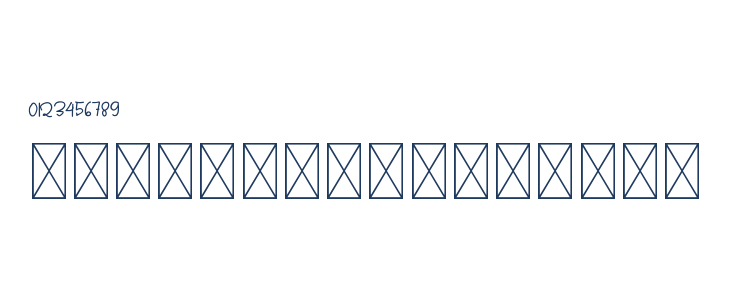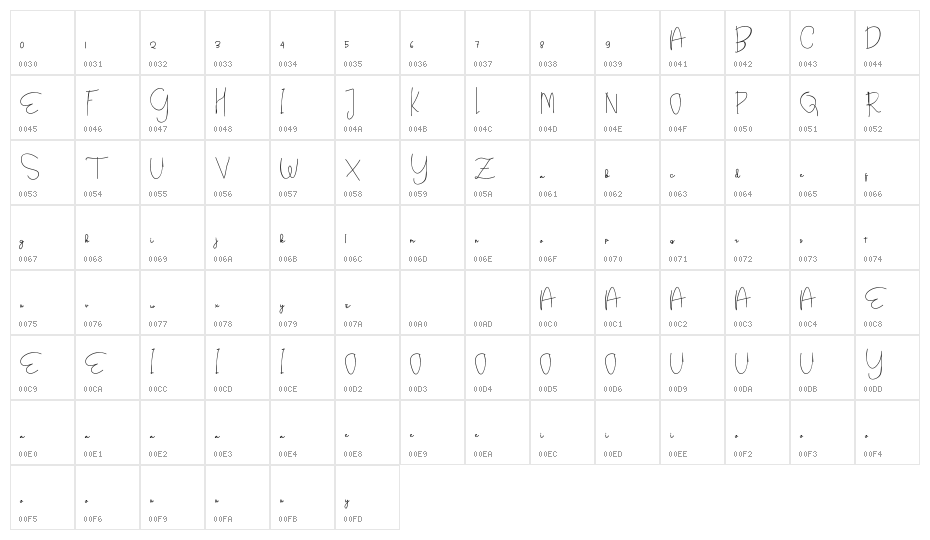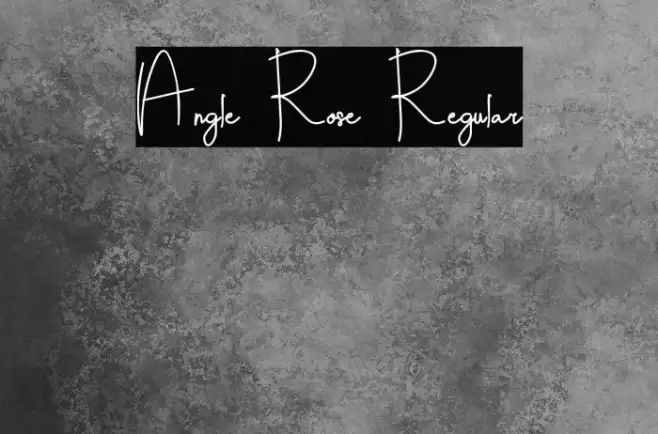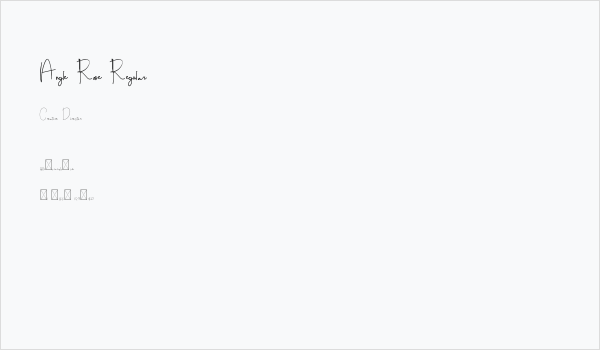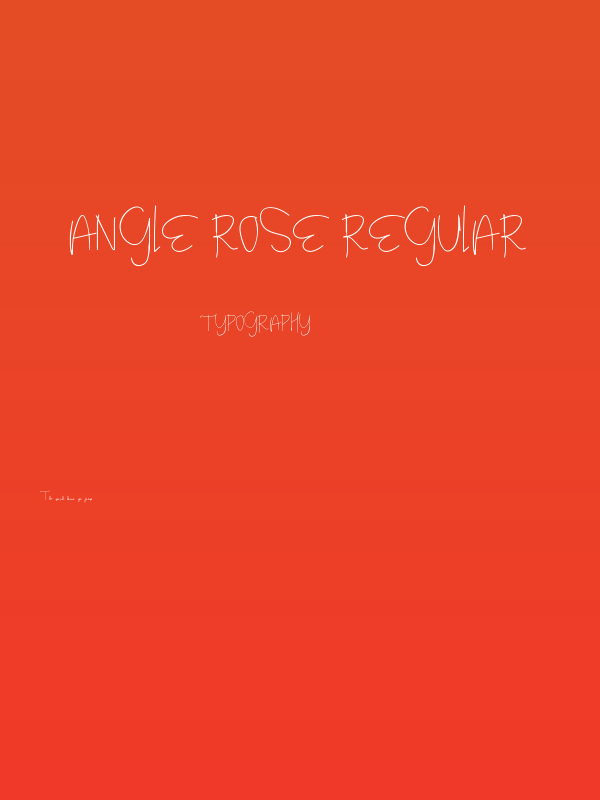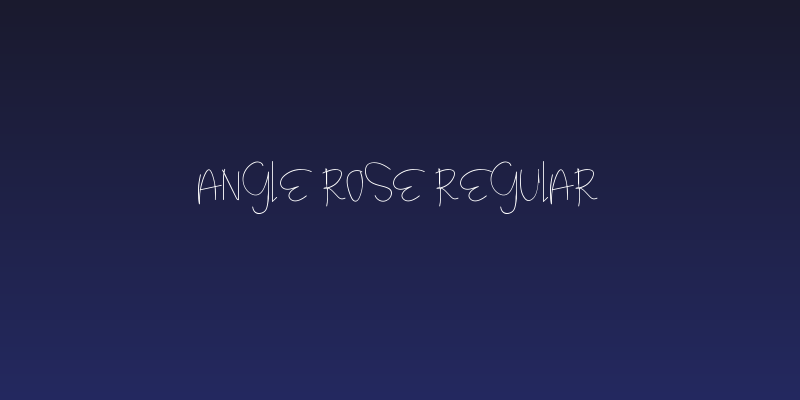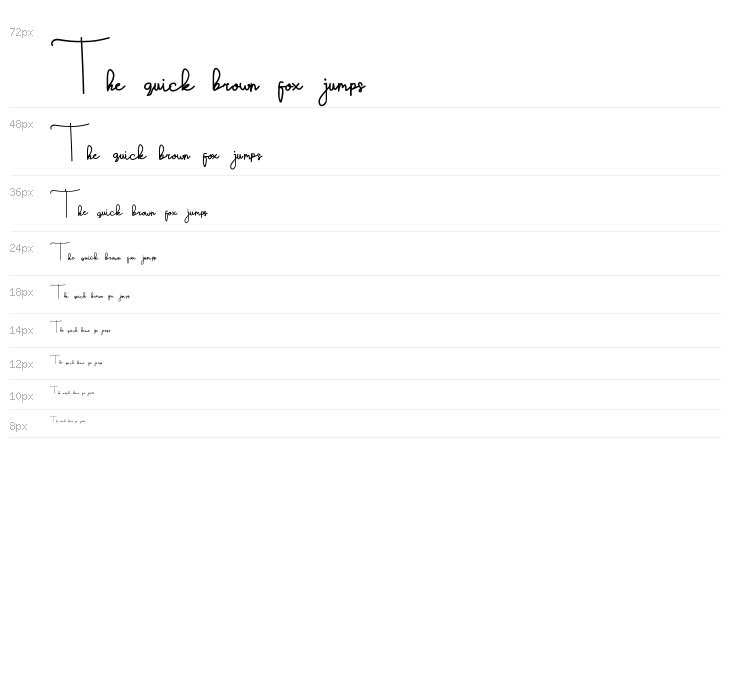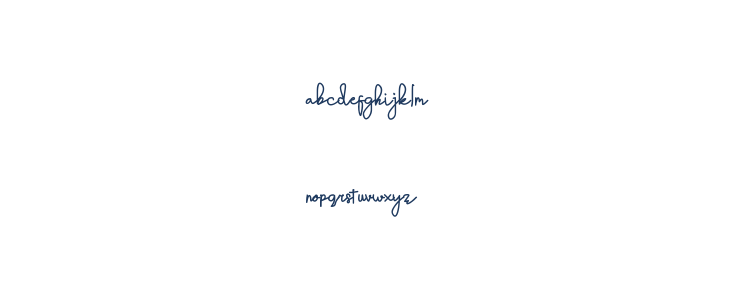
Angle Rose Regular Font
Angle Rose Regular Description
This font features a whimsical and playful design, characterized by its thin, elongated strokes and a handwritten style. The uppercase letters exhibit a tall and narrow form, with unique curves and loops that add a sense of movement and fluidity. The lowercase letters maintain a consistent style, complementing the uppercase with their own quirky twists and turns. Numbers and special characters are crafted with the same attention to detail, ensuring a cohesive look across all elements. The overall appearance is light and airy, making it suitable for projects that require a touch of elegance and creativity.
| Proposed Projects | Ideal for greeting cards, invitations, children's books, and creative branding projects. |